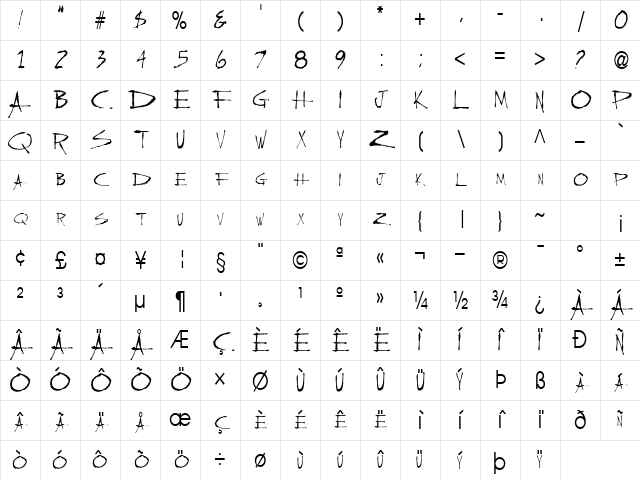
SnowWrite Regular
SnowWrite Family
Design Context for SnowWrite
SnowWrite is a composed and adaptable typeface that performs quietly and consistently across a wide range of design contexts.